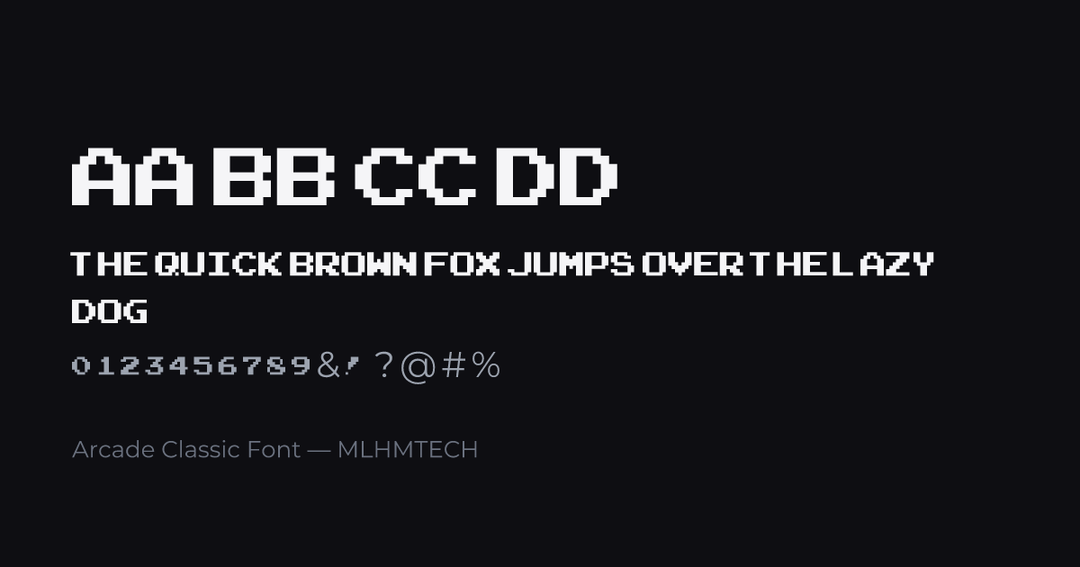
Arcade Classic Font
Arcade Classic is a bold, pixelated font that brings the nostalgic feel of 80s arcade games to your designs. Ideal for gaming logos, posters, and social media graphics.
Arcade Classic is a display font that captures the essence of classic arcade games. Its blocky, pixelated letterforms are reminiscent of early video game graphics, making it perfect for projects that need a retro, playful, or techy vibe.
This font is great for headlines, titles, and logos. Use it for gaming-themed content, party invitations, or any design that wants to evoke a sense of fun and nostalgia. The font is provided in TTF format, ensuring compatibility with most design software.